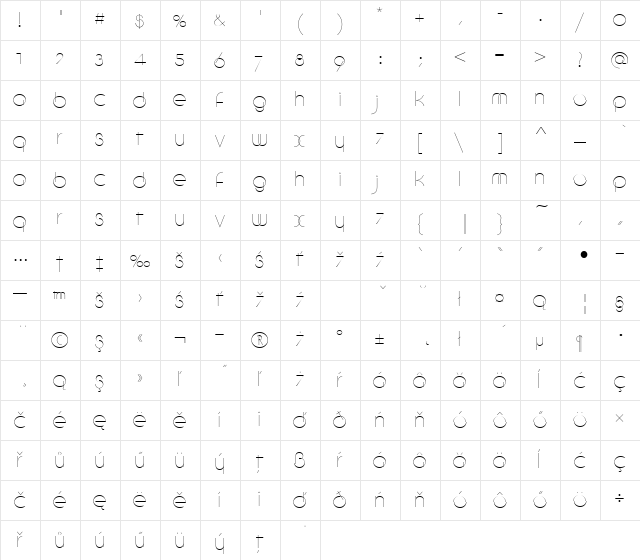
CirkuDEE Regular
Design Context for CirkuDEE Typeface
CirkuDEE takes a measured approach to typography — its balanced proportions and neutral character make it a reliable workhorse for both digital and print work.